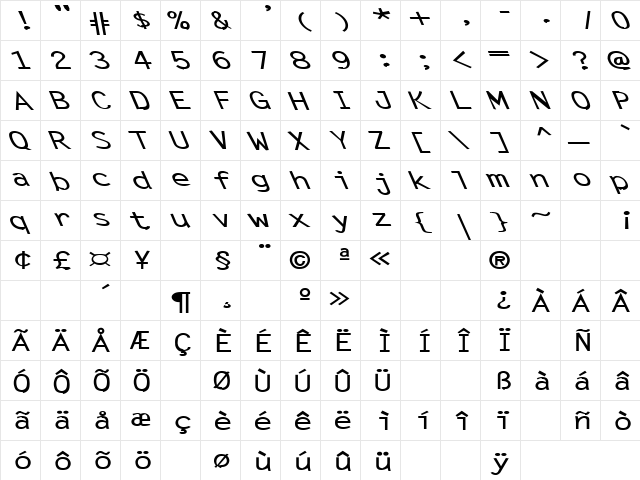
Celebration Day 1 Regular
Celebration Day 1 offers clean, dependable letterforms without strong stylistic allegiance, making it a practical choice for designers who need flexibility.